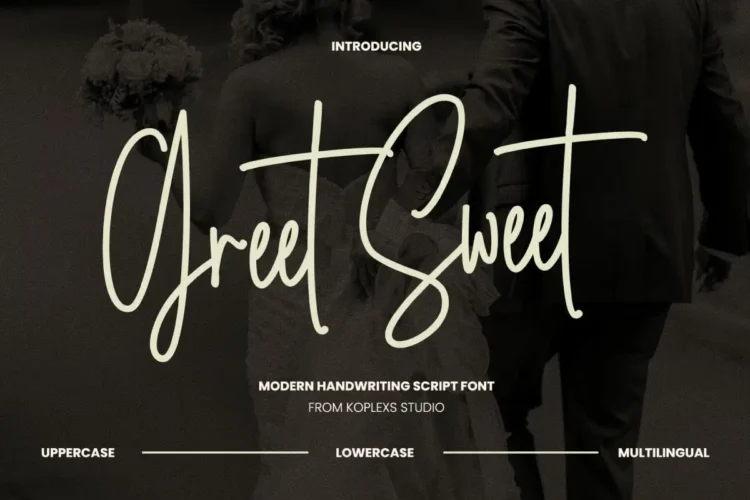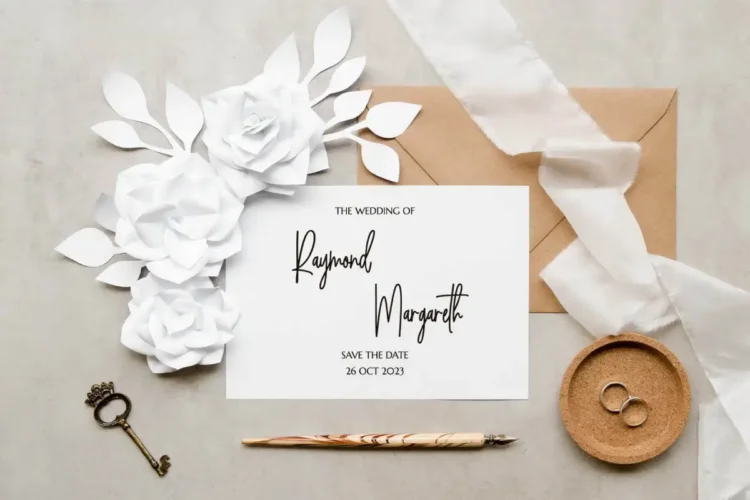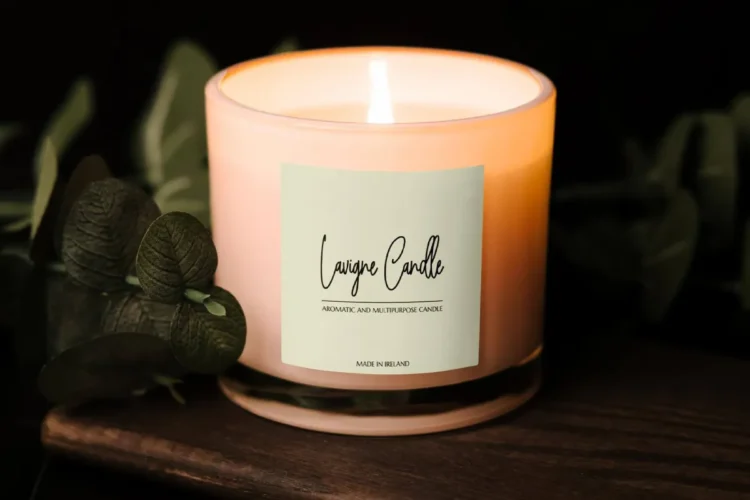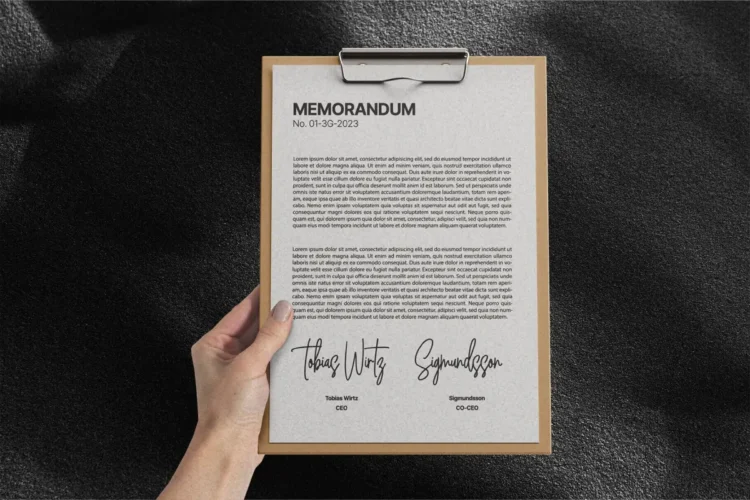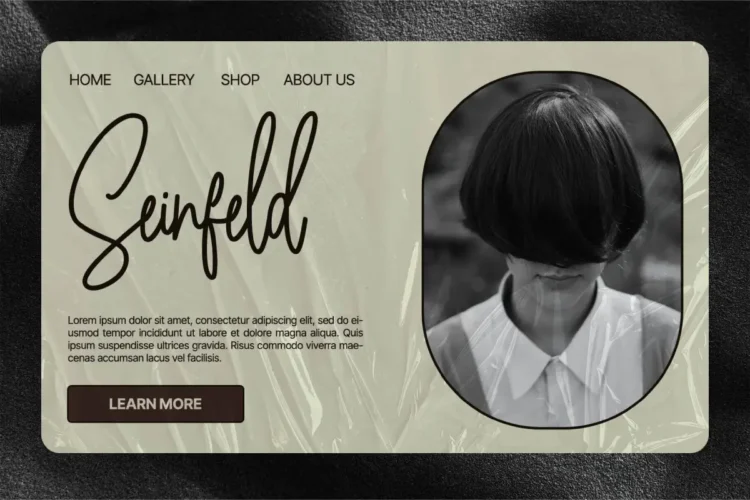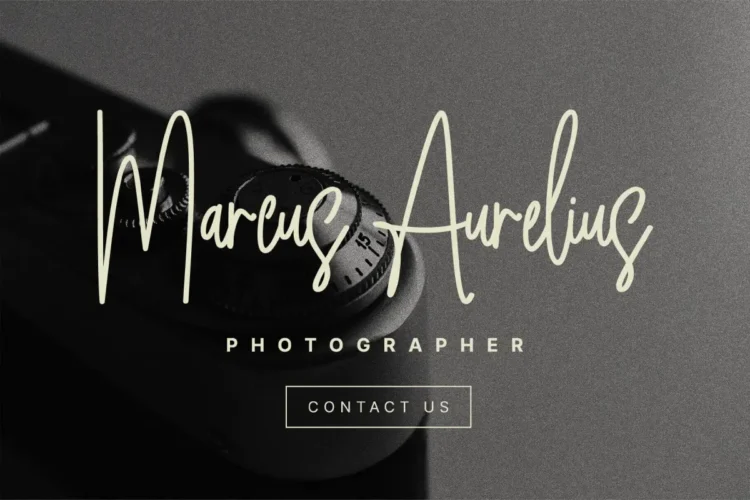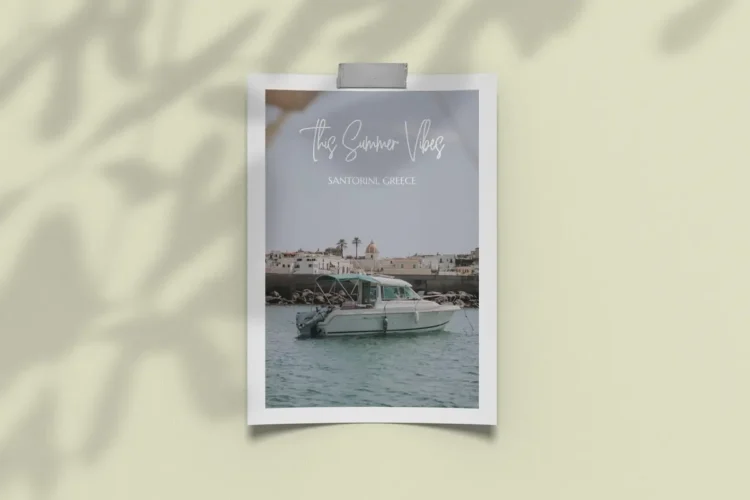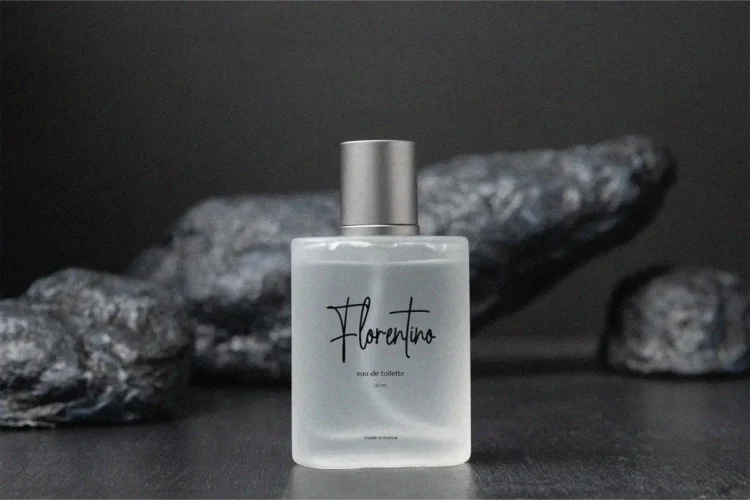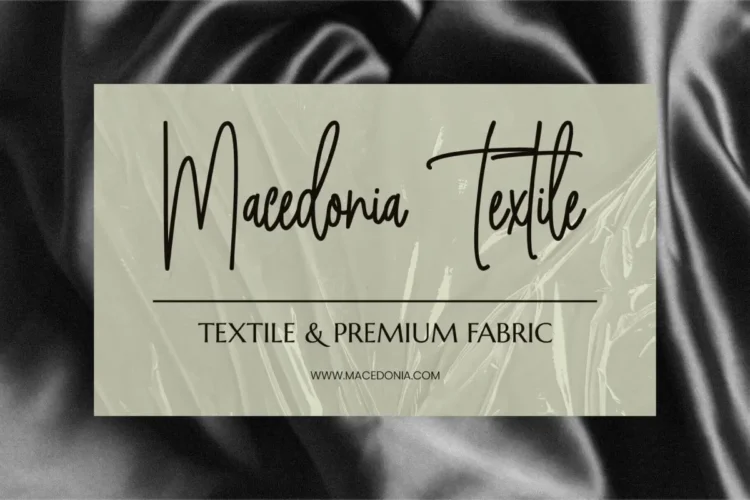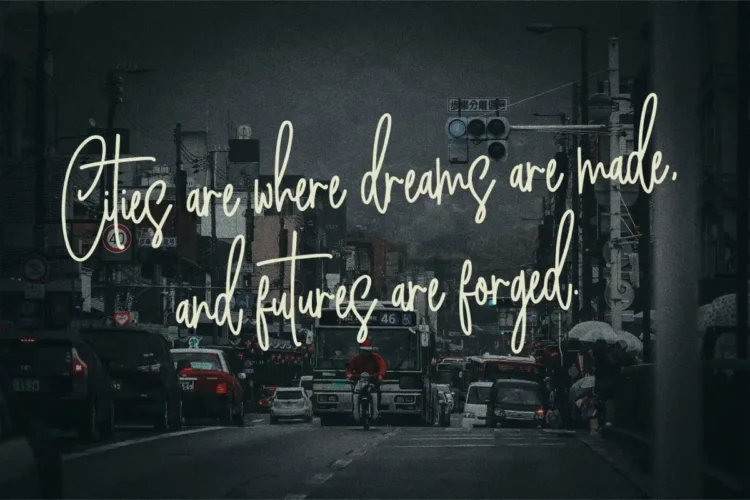
Great Sweet Font – Elegant Handwritten Script & Luxury Signature Font
Great Sweet Font is a handwritten script font with a natural flow and modern elegance, designed to elevate any creative project. As a signature font and cursive font, it offers smooth strokes, stylish curves, and a professional look, making it perfect for personal or business use.
This typeface stands out as a versatile wedding font, branding font, and logo font, while also working beautifully as a cosmetic font, aesthetic font, and calligraphy font. With its timeless charm, it belongs among the best modern fonts for designers who seek sophistication and originality.
Its refined design gives your projects a polished and high-class touch, making it ideal as both an elegant font and luxury font. Whether for printed materials or digital works, Great Sweet Font ensures your designs capture attention.
Great Sweet Font Perfect for :
Great Sweet Font is versatile and works beautifully for :
- Wedding invitations & save-the-date cards
- Business and personal branding projects
- Luxury product packaging & logos
- Cosmetic and fashion labels
- Aesthetic social media content
- Editorial, magazine, and blog design
- Handwritten-style calligraphy projects